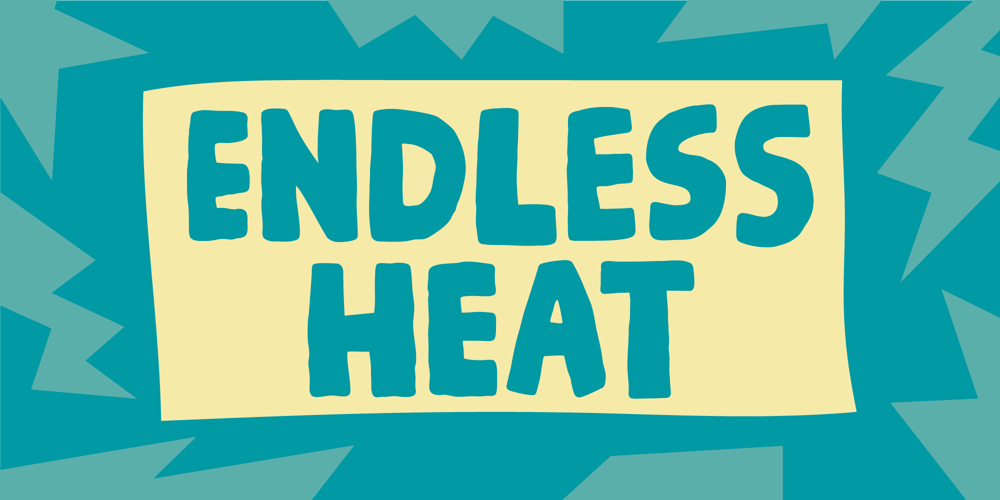
Endless Heat
Endless Heat font
Endless Heat Font Family was designed by Jakob Fischer and published by PizzaDude.dk. Endless Heat contains 2 styles and family package options. The Endless Heat font is my crunchy organic ALL-CAPS font (The base font for my wavy Endless Beat font)With clear handmade details, contextual alternates and legibility even at small sizes, Endless Heat could help your next creative adventure.Just like Endless Beat, I have added 5 slightly different versions of each letter – and ofcourse there is multilingual support!